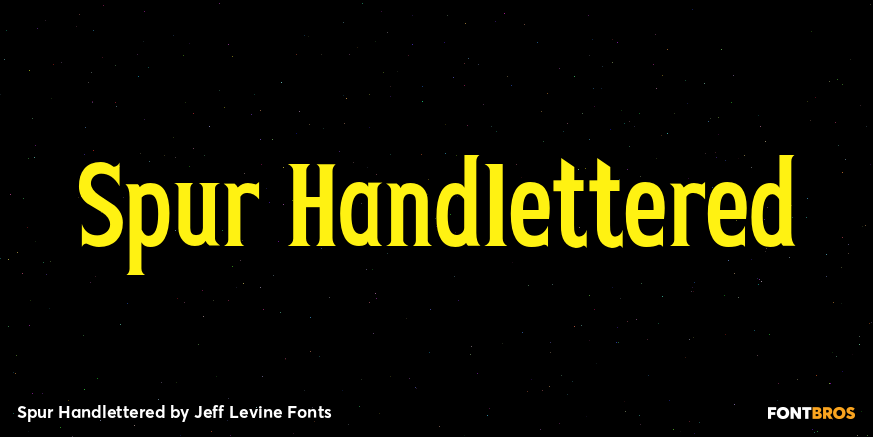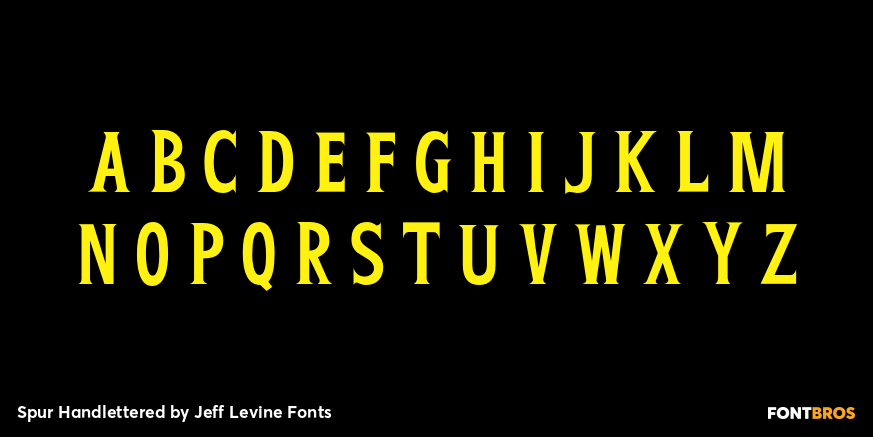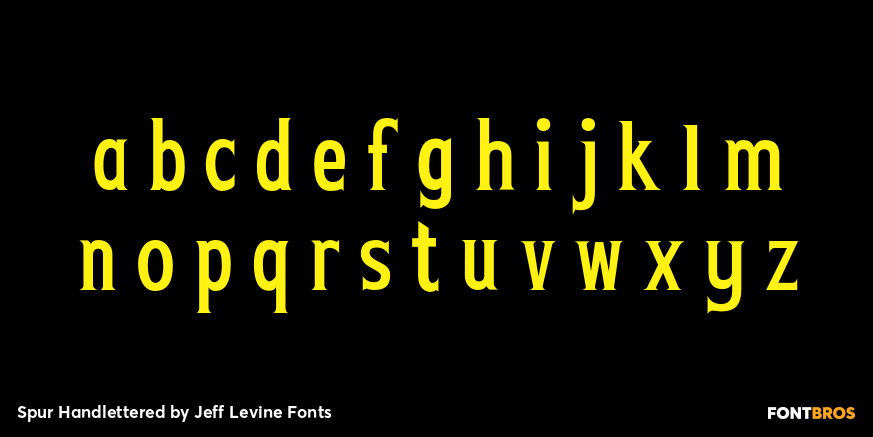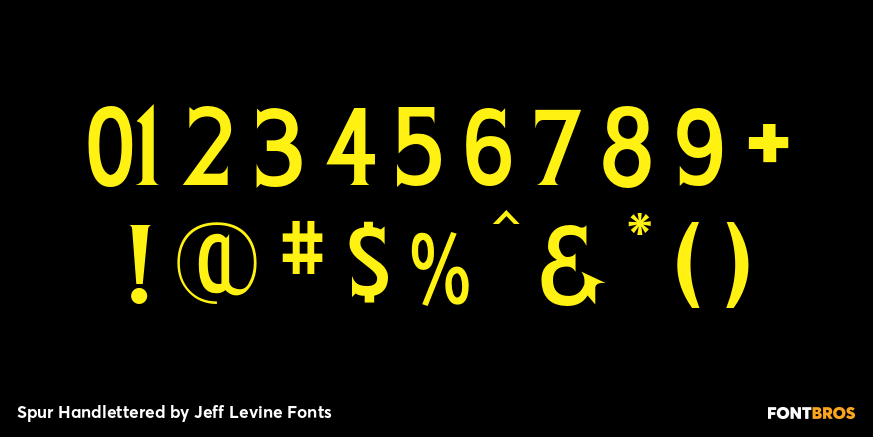
Spur Handlettered
The spurred serif style of Roman lettering has long been a favorite of sign painters and show card writers.
Spur Handlettered JNL from Jeff Levine gives this classic design an ultra-casual look, complete with all of the nuances of hand-lettering.